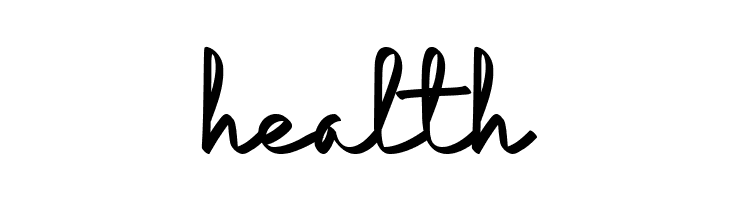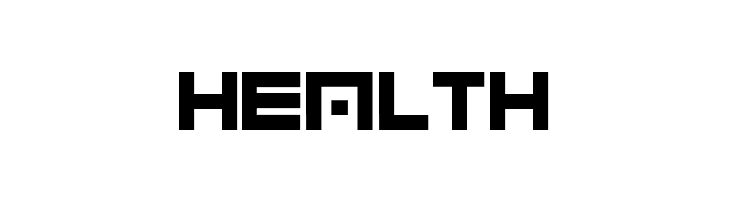
ABSTEMIOUS Font
Font by Woodcutter
A distressed, grunge-style font with a bold, weathered appearance.
Simplesnails by Haiku Font
A flowing, cursive font with a playful, handwritten style.
Pauls Ransom Note Font Font
Font by Paul - viciousink.net
A playful, eclectic font with a ransom note style, featuring diverse and dynamic characters.
Love in Paris Font
A playful, rounded font with a hand-drawn feel and unique symbols.
Kraftwagen-Grotesk SmallCaps NBP Font
A bold, geometric sans-serif font with a modern and clean design.
Spotyfied Me Font
Font by imagex
A bold, graffiti-inspired font with splatter effects for a dynamic look.
Hezaedrus Light Font
A clean, modern sans-serif font with consistent stroke width and balanced spacing.
ILLINOIS block Font
A bold, block-style font with strong outlines, ideal for impactful headlines.
Readiness Bold Font
A bold, modern typeface with clean lines and strong presence.
Riscada Doodle Font
A playful, hand-drawn font with a doodle-like, energetic style.
Meridiana Regular Font
Font by dartcanada.tripod.com - Darren Rigby
A modern, geometric sans-serif font with uniform stroke width and clear readability.
against myself Font
Font by Christopher Hansen
A bold, hand-drawn font with a rebellious, sketch-like style.
Seized Future Font
A futuristic, geometric font with sharp angles and clean lines.
Argentum Sans ExtraLight Font
A clean, modern sans-serif typeface with uniform stroke widths and balanced design.
Fire Font
Font by Woodcutter
A set of decorative fire and flame vector icons.
community Font
A bold, playful font with rounded edges and a bubble-like appearance.
Magical Markers Font
A playful, bold font with rounded, thick strokes and a whimsical, hand-drawn style.
Aka-AcidGR-Atomic Font
Font by www.aka-acid.com
cocksure Font